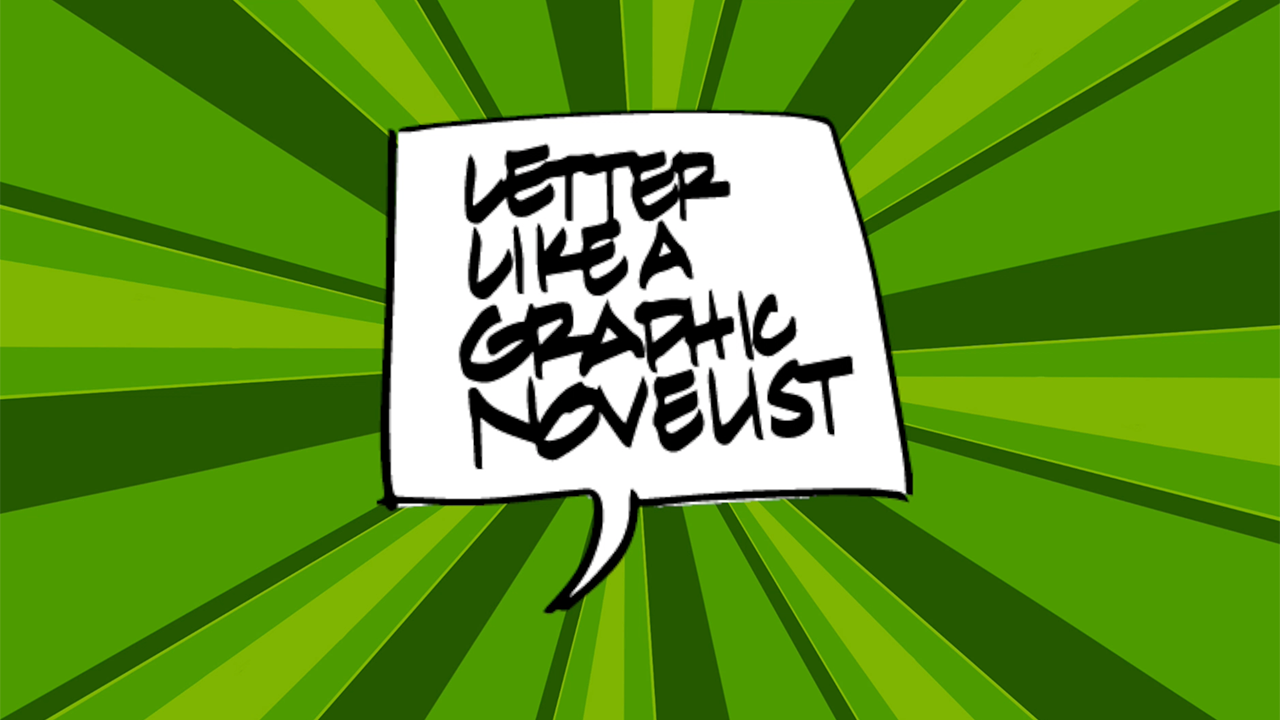
Have you ever wondered what it would be like to letter like a graphic novelist?
This is a fast and fun lettering style that is great for:
- Improving your handwriting
- Combining with images to tell a story
- Collaborating with other artists
AND...this is a great time to letter with friends and family!
First we will begin by putting pencil to paper, just like architects do when sketching out their ideas and designs.
Then we will switch to ink and with a twist of a nib, give the lettering style a comic-book look.
Finally we will scale up and make powerful words that POP! And cover layout. ;)
This is for all ages, all experience levels, and all kinds of lettering artists. I will be using a lot of language used by visual practitioners, calligraphers, and hand lettering artists because that who mainly will be attending the sessions. Consider the online environment a melting pot of creative types. You will have so much to learn from me, and others!
With a passion for lettering, Heather enjoys helping others improve their handwriting and find ways to express themselves through different lettering styles. Lettering like a Graphic Novelist is a favorite of Heather's because it's easy to learn, fast to write, and fun to apply to many different projects.